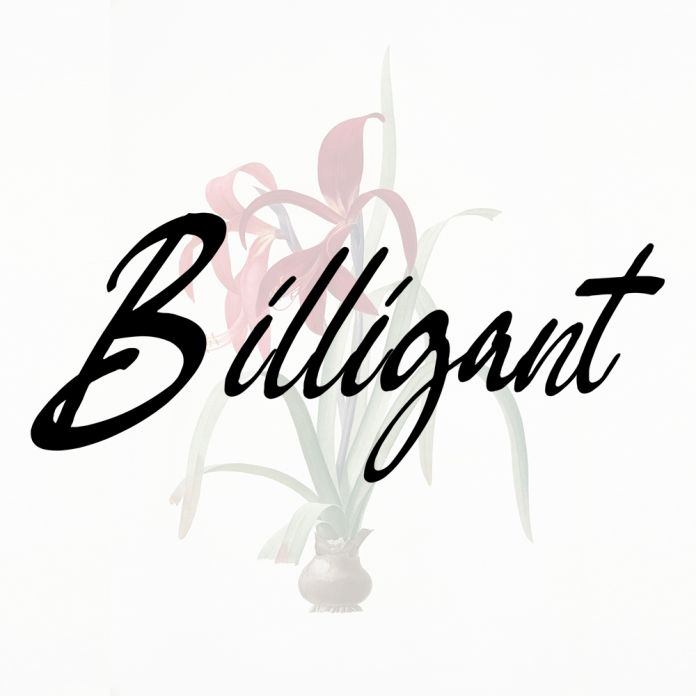
Billigant is a unique and elegant handwritten font. It looks beautiful on a variety of designs requiring a personalized style, such as wedding invitations, thank you cards, weddings, greeting cards, logos and so on.